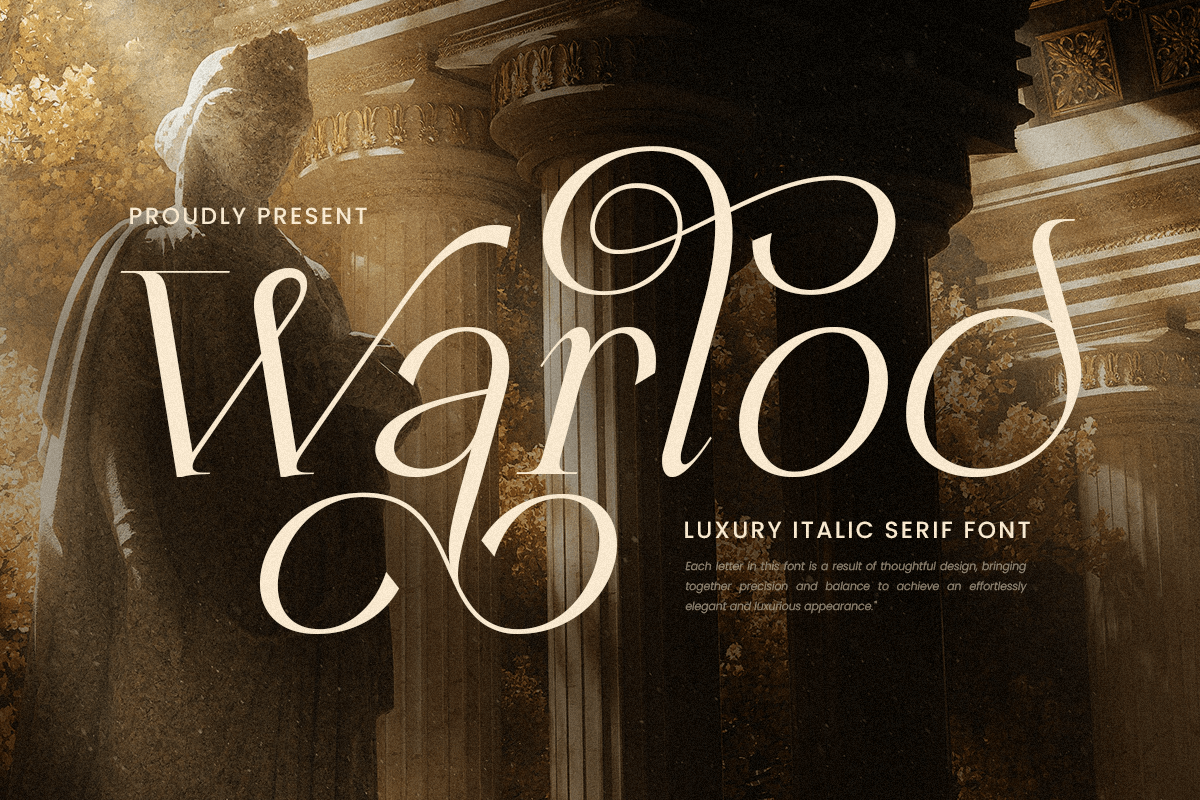
Warlod
-Luxury Italic SerifWarlod - Luxury Italic Serif
Warlod is a luxury italic serif font designed to convey a sense of grace and dynamism. With its sweeping curves and refined structure, it offers a timeless appeal that elevates any design.
Perfect for Premium Designs
This font is ideal for branding, invitations, magazine covers, and high-end product packaging, delivering an unmistakable touch of sophistication to every project.
Sophisticated and Versatile
Warlod balances traditional serif aesthetics with modern italic flair, making it a versatile choice for creating distinctive and memorable designs.
Warlod - Luxury Italic Serif Font Features: